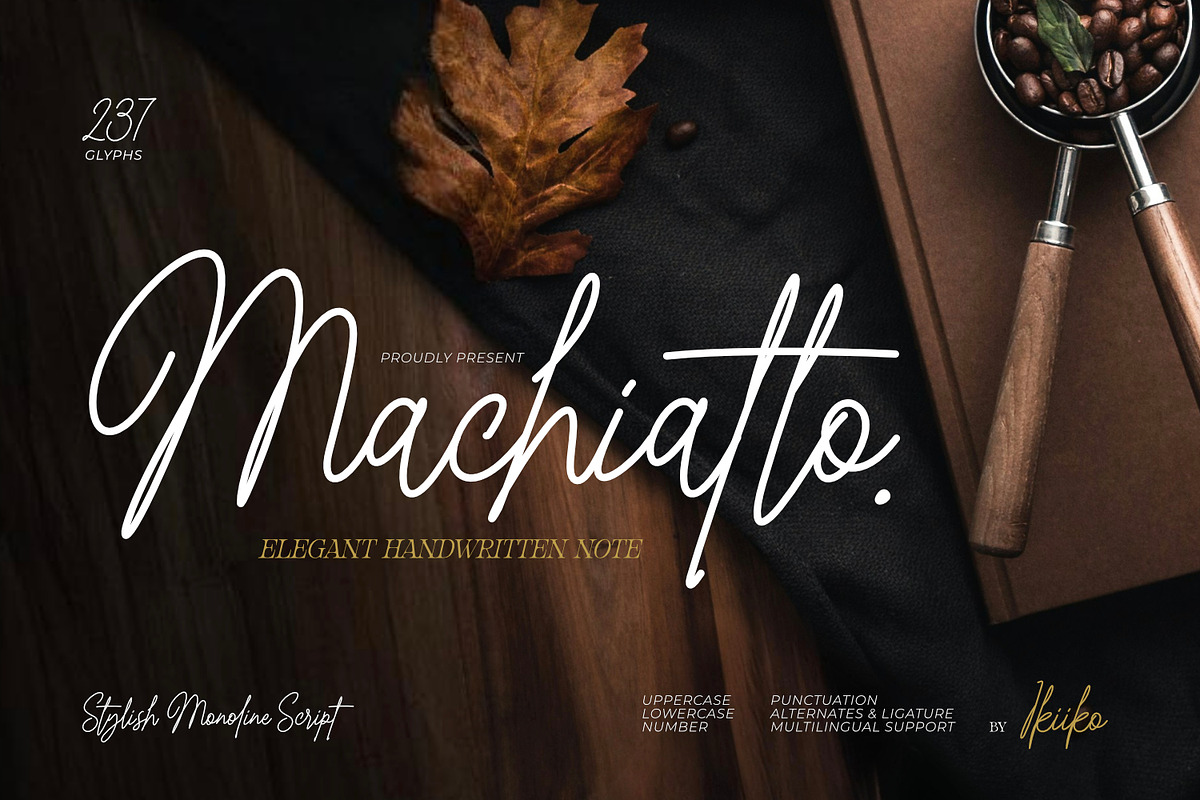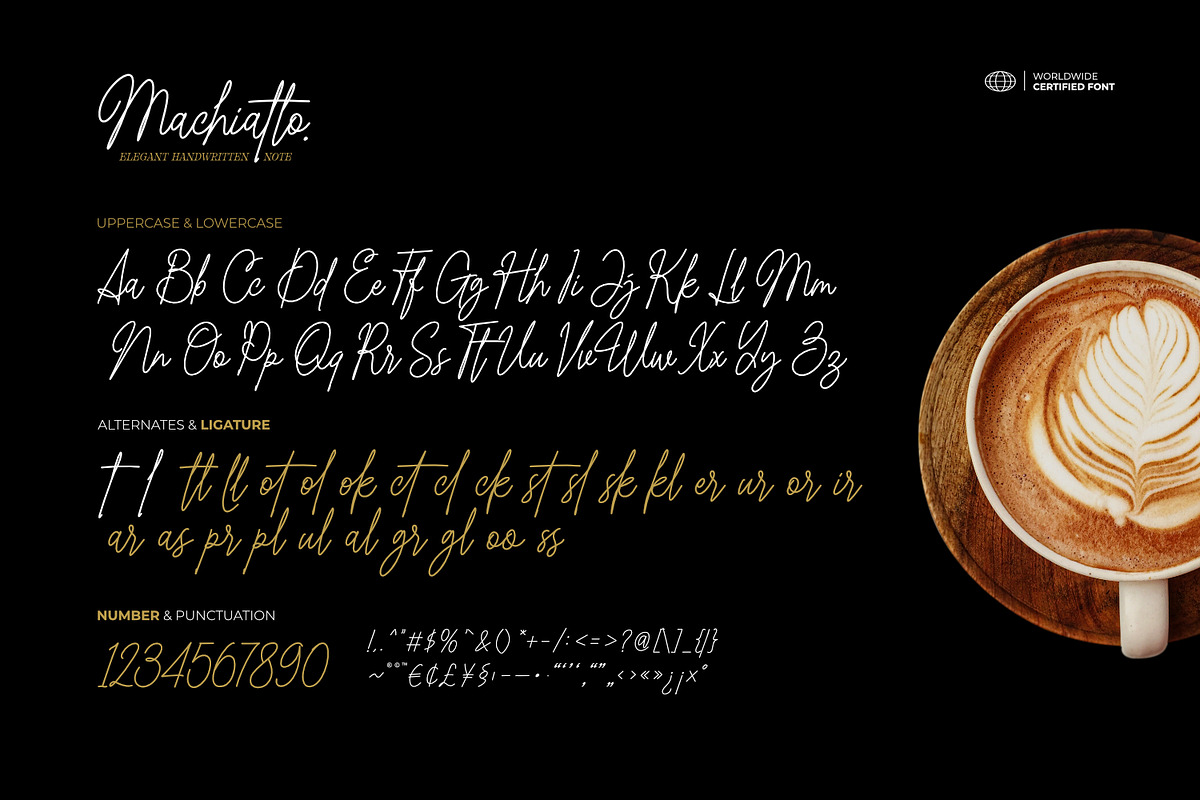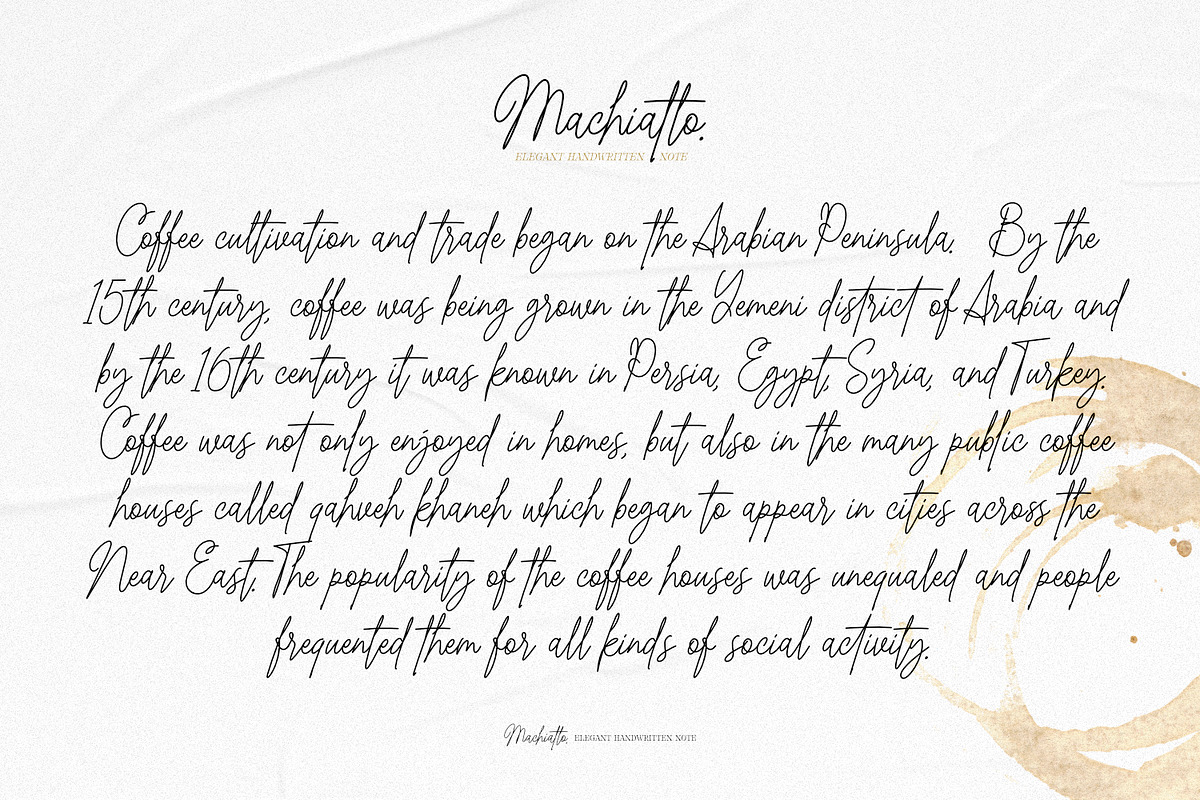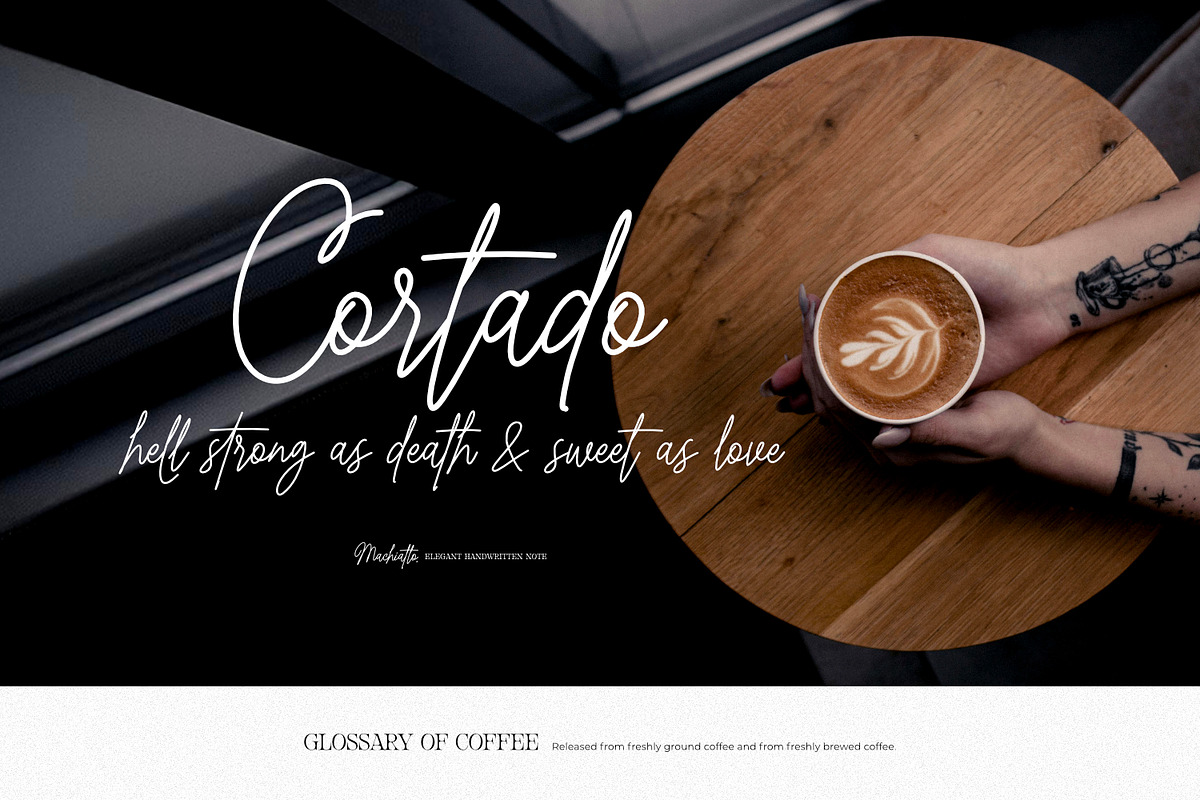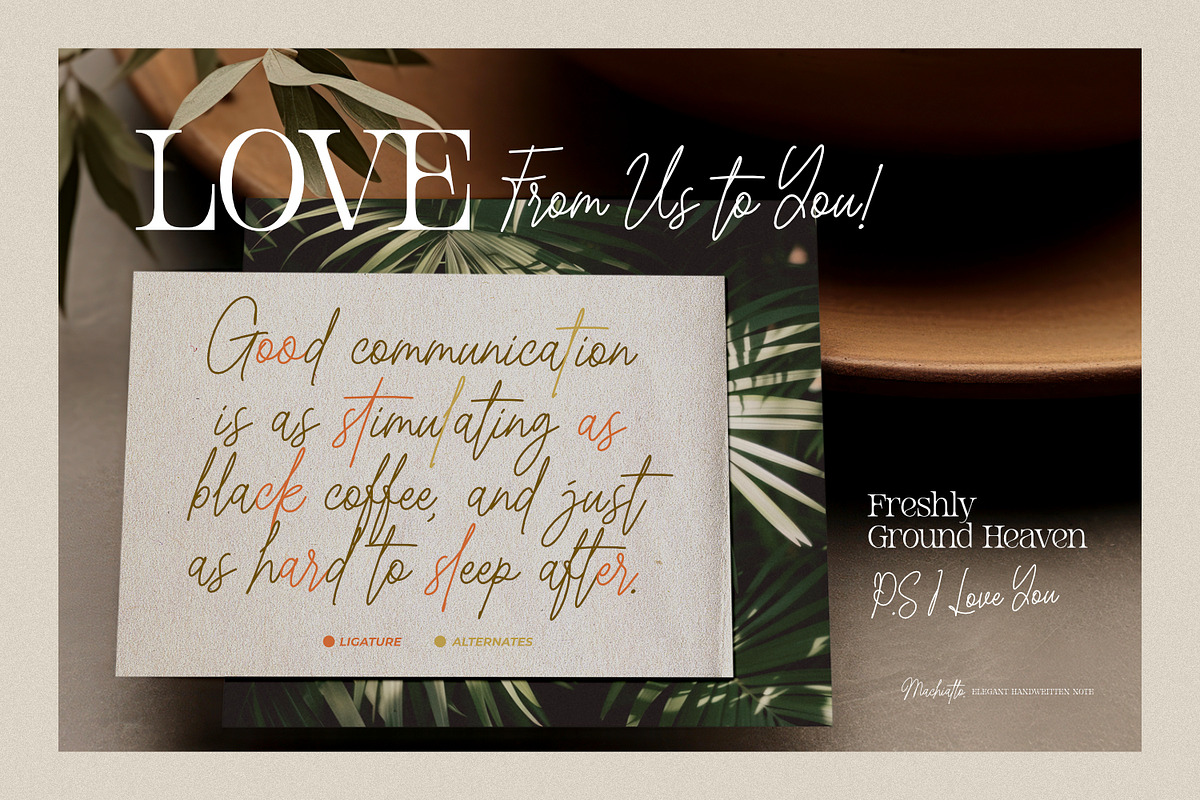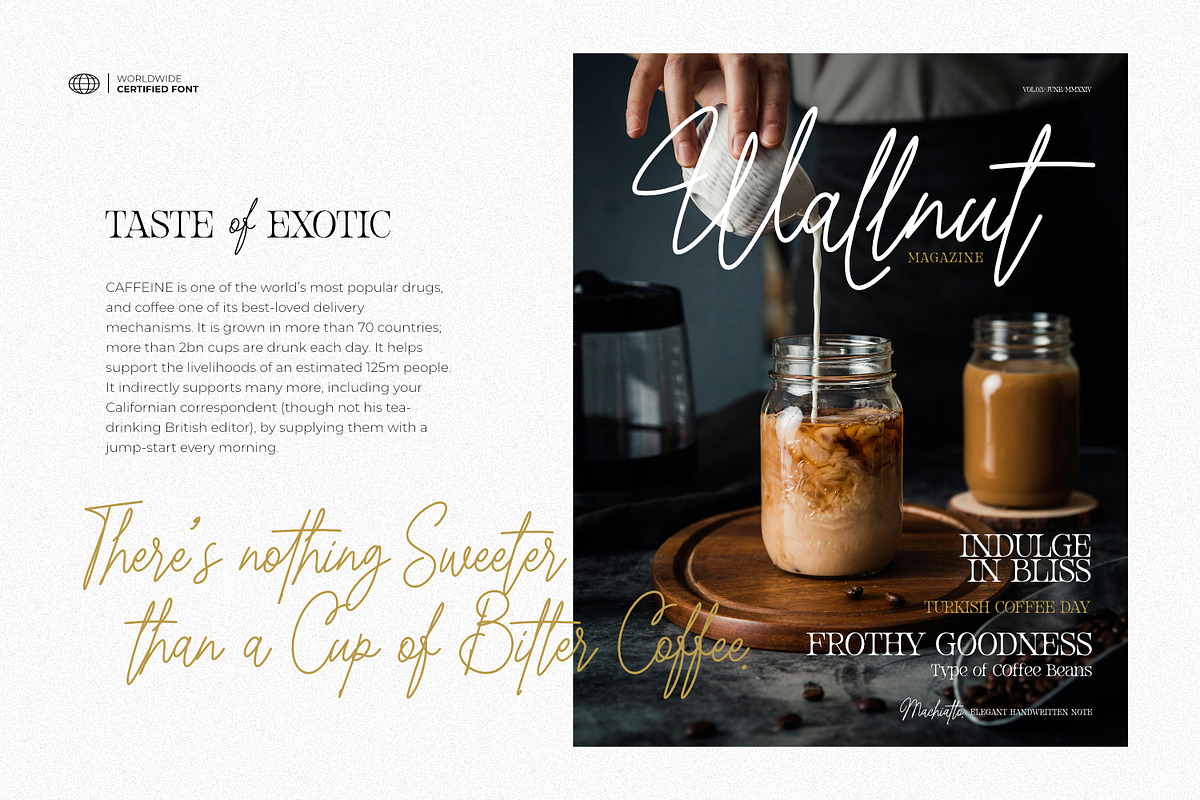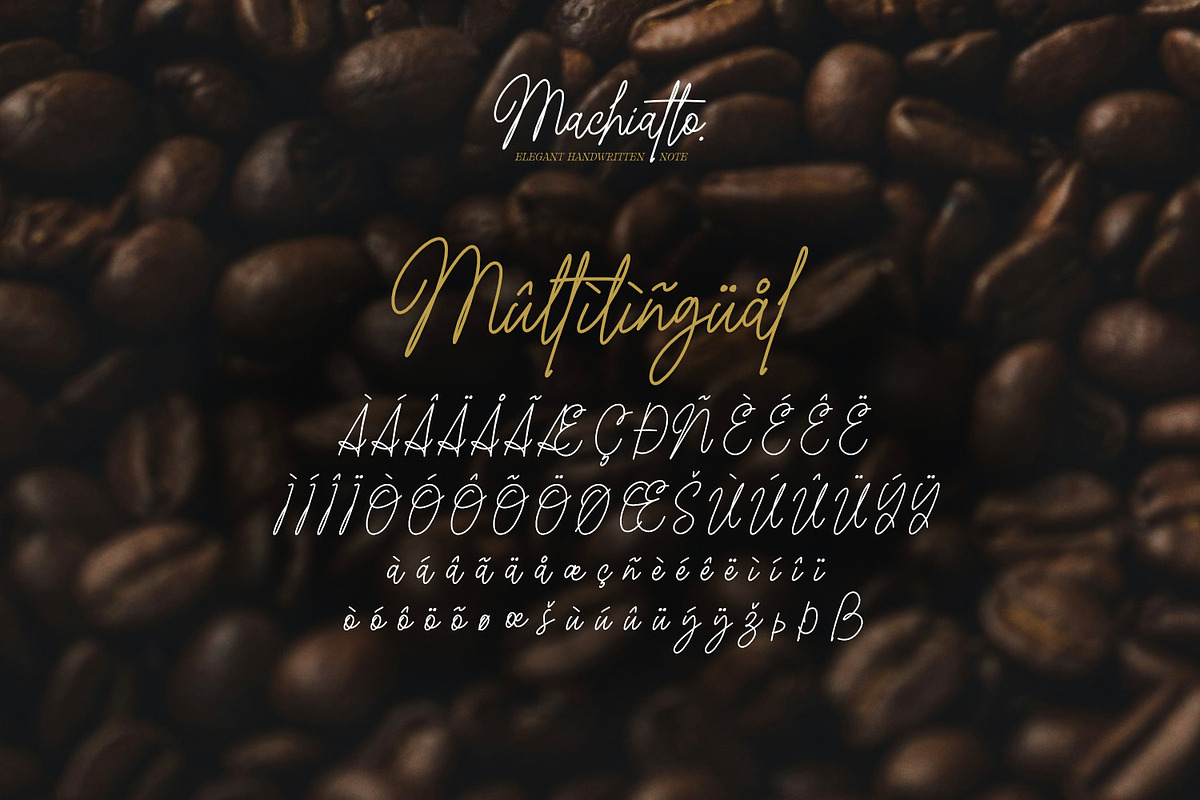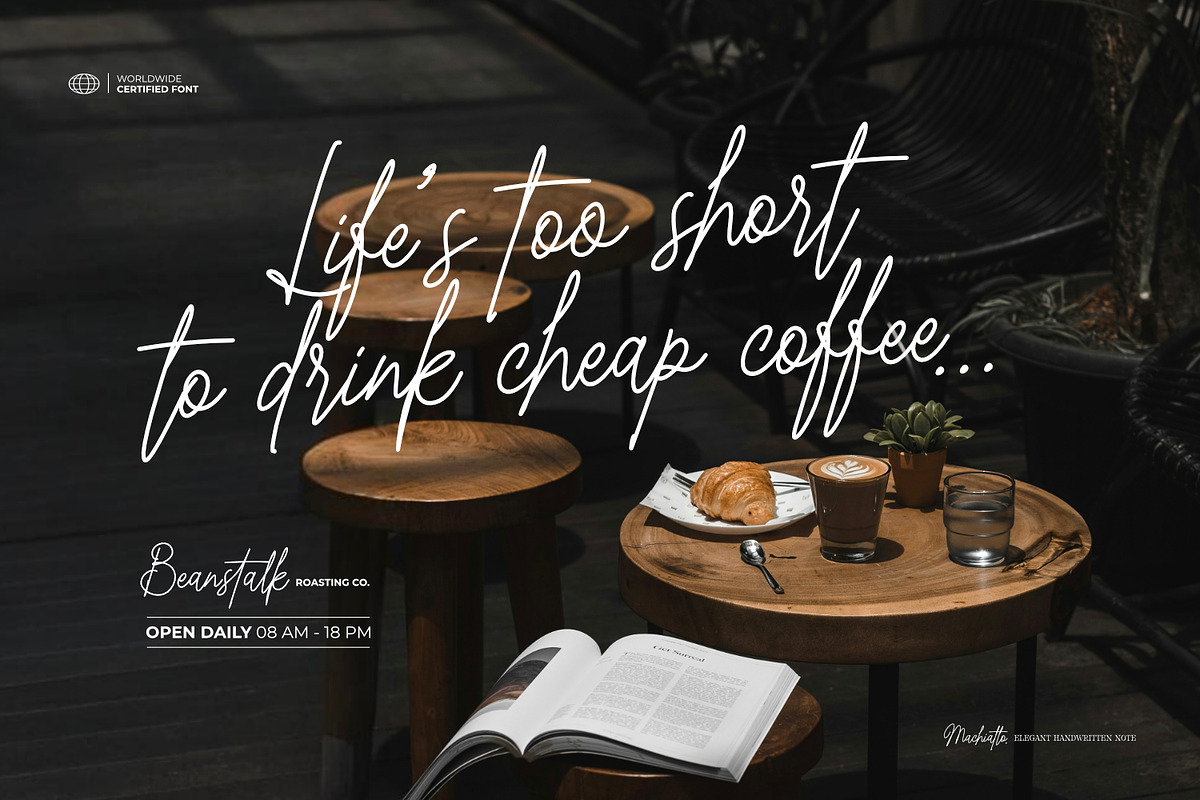
Machiatto - Elegant Handwritten Note
Proudly present Machiatto - Elegant Handwritten Note, created by ikiiko.
Machiatto is a stylish and elegant handwriting font that radiates beauty and sophistication. Its signature script style infuses a touch of luxury into any project, making it perfect for high-end fashion designs and upscale branding.
Whether you're designing chic wedding invitations or creating glamorous social media graphics, Machiatto's luxurious elegance will elevate your work to new heights. This font adds a refined and fashionable flair, ensuring your text stands out with unparalleled grace and style.
This font is very suitable for making a branding, brand identity, logo, luxurious design, fashion stuff, feminine brand, magazine or catalogue design, headline, apparel, quotes, or simply as a stylish text overlay to any background image that demand attention.
- Alternates & Ligature